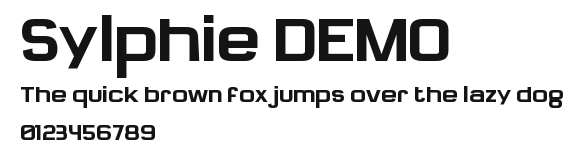
• Designer: Michael Muranaka
About Sylphie DEMO.otf
Sylphie DEMO.otf is a modern, elegant sans-serif font designed for ultimate readability and visual harmony. Perfect for branding, headlines, web design, and print materials.